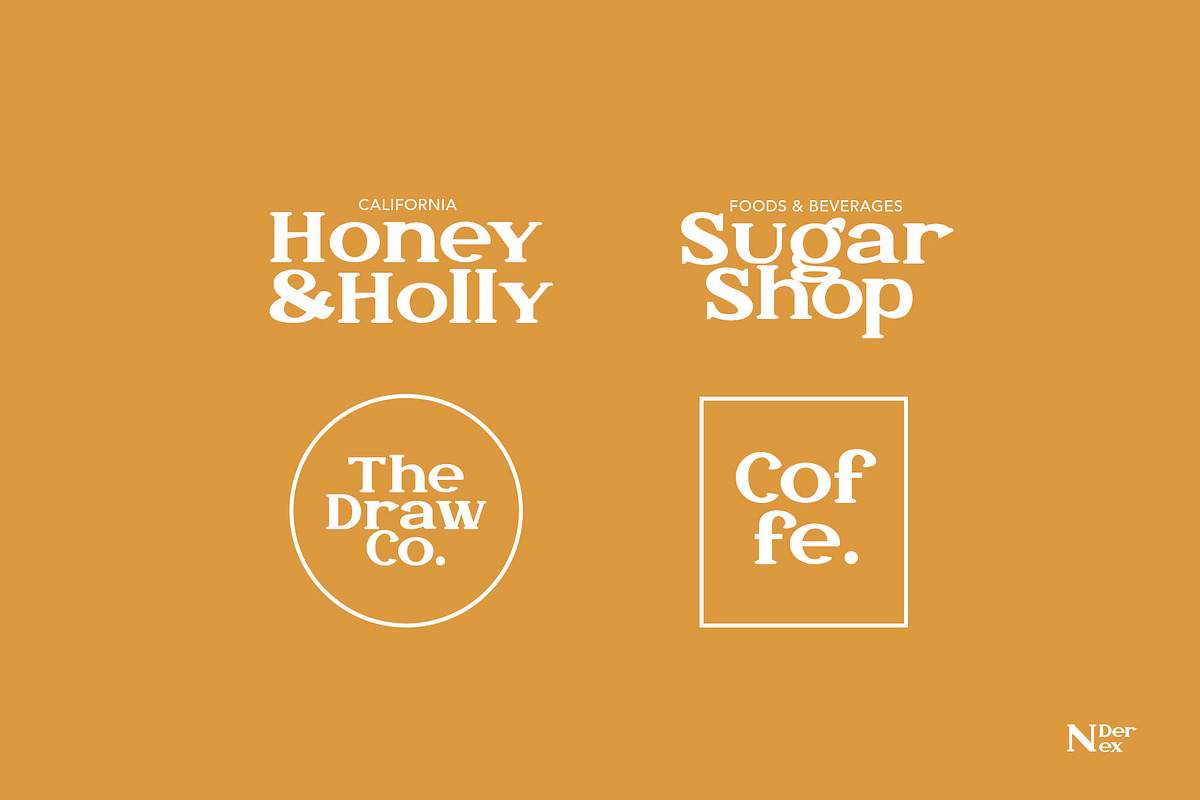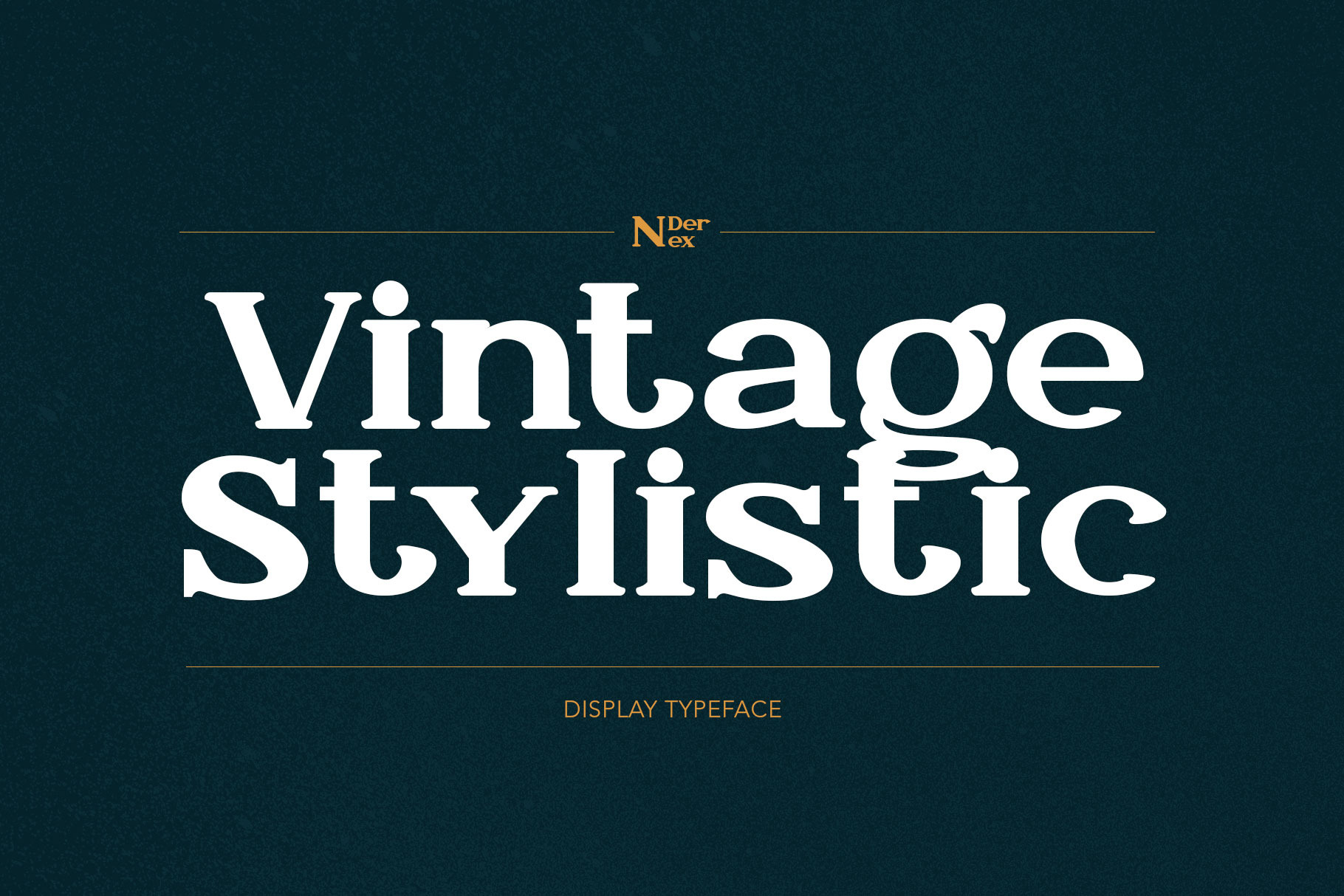
N Derex Display Font
Introducing "N Derex Display Typeface" - A brand new bold serif with vintage curves. Due to its split personality , N Derex Display Typeface is a very versatile font, covering a wide range project types, from bold magazine imagery , to wedding invitations, to branding, poster design and so much more.
N Derex Serif Regular
N Derex Serif Bold